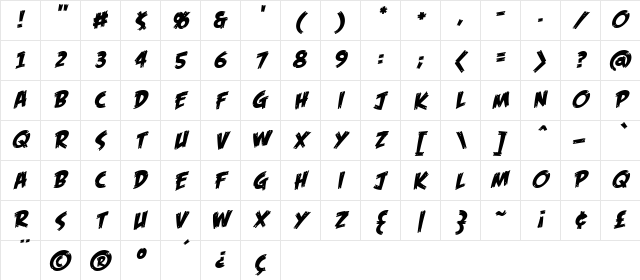
Feast of Flesh BB Italic
Foundry: Nate Piekos. Blambot.com
Designer: Nate Piekos
Design Context for Feast of Flesh BB
Feast of Flesh BB is a composed and adaptable typeface that performs quietly and consistently across a wide range of design contexts. The slanted form adds forward momentum and visual energy.